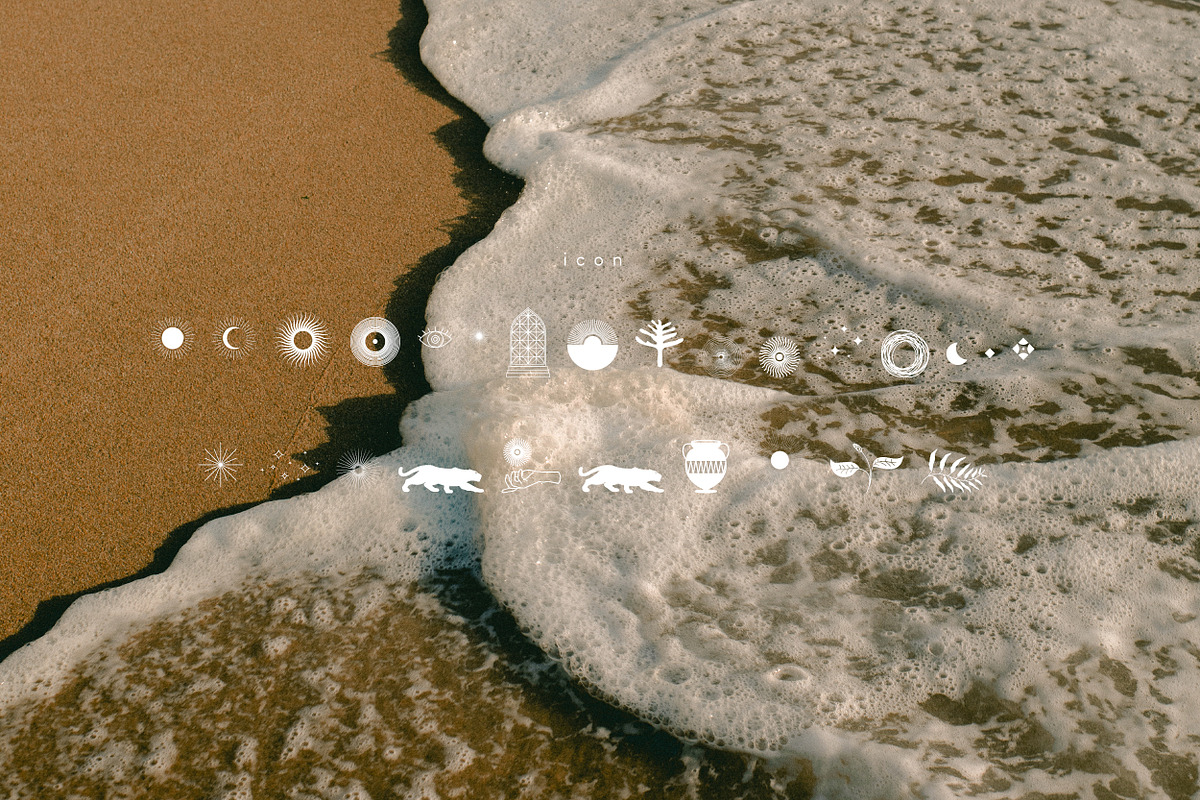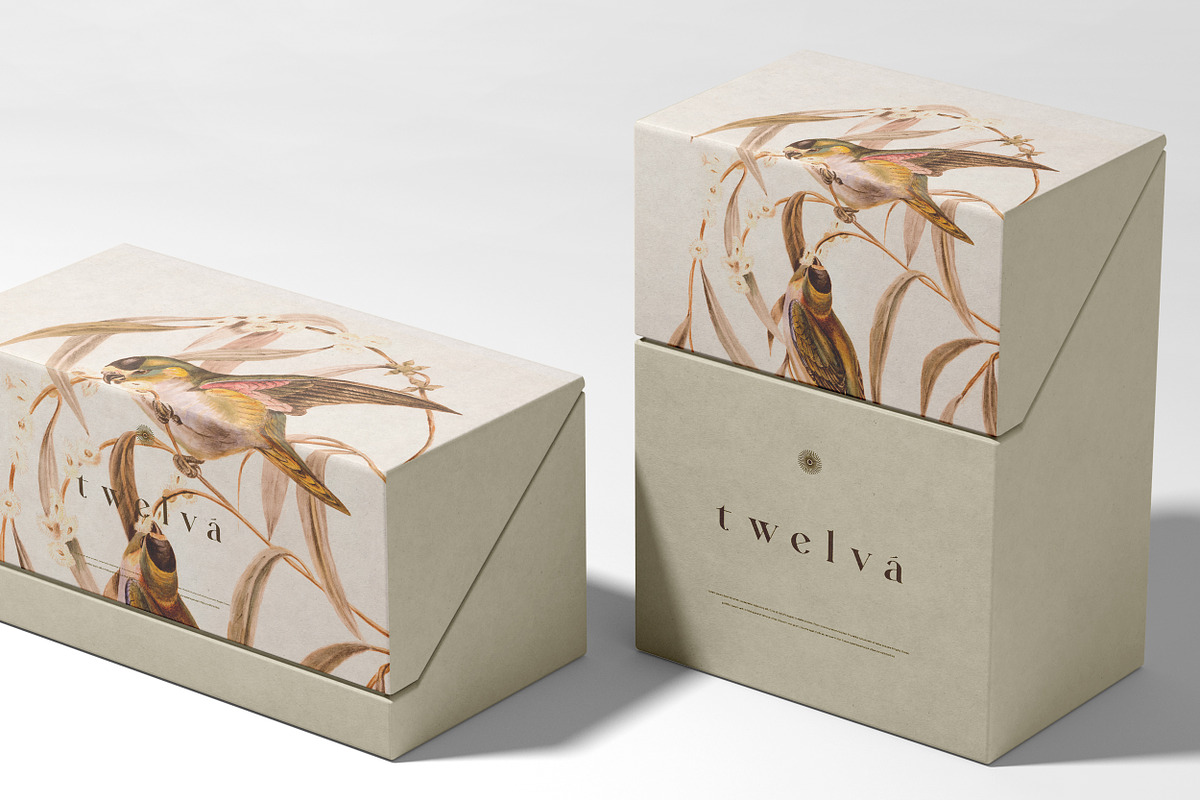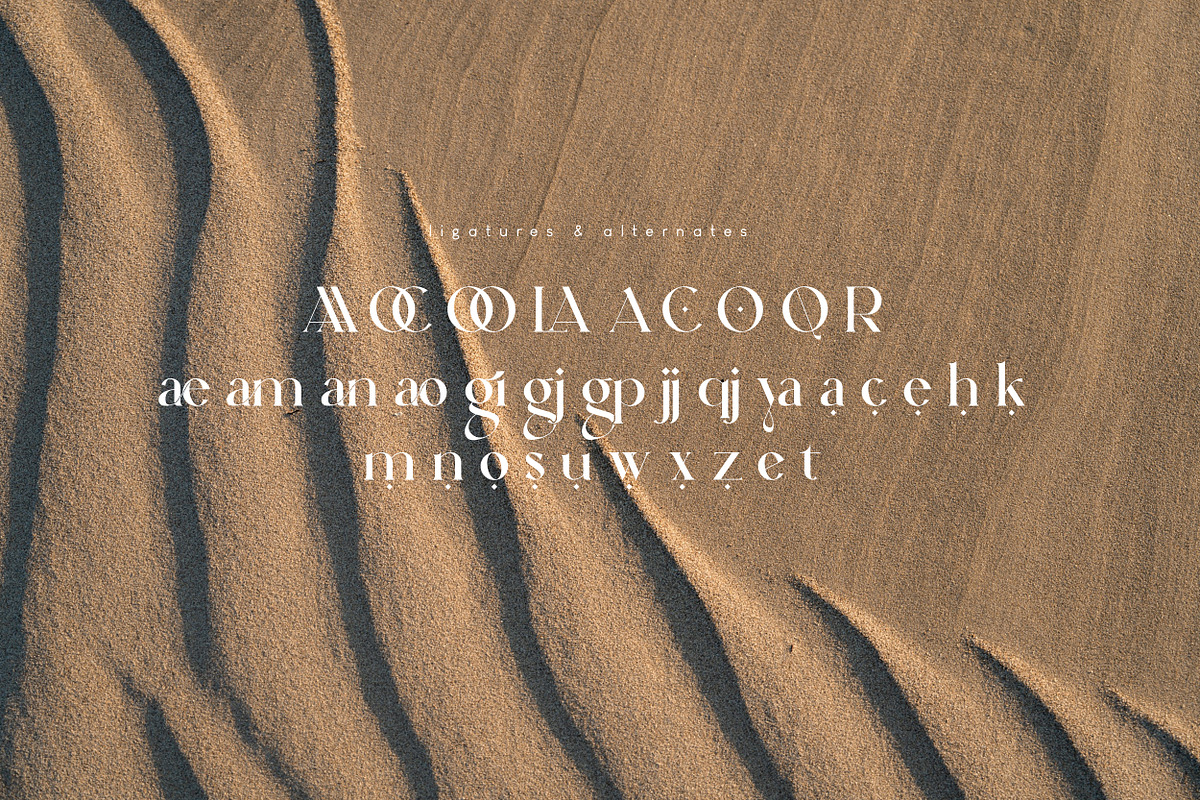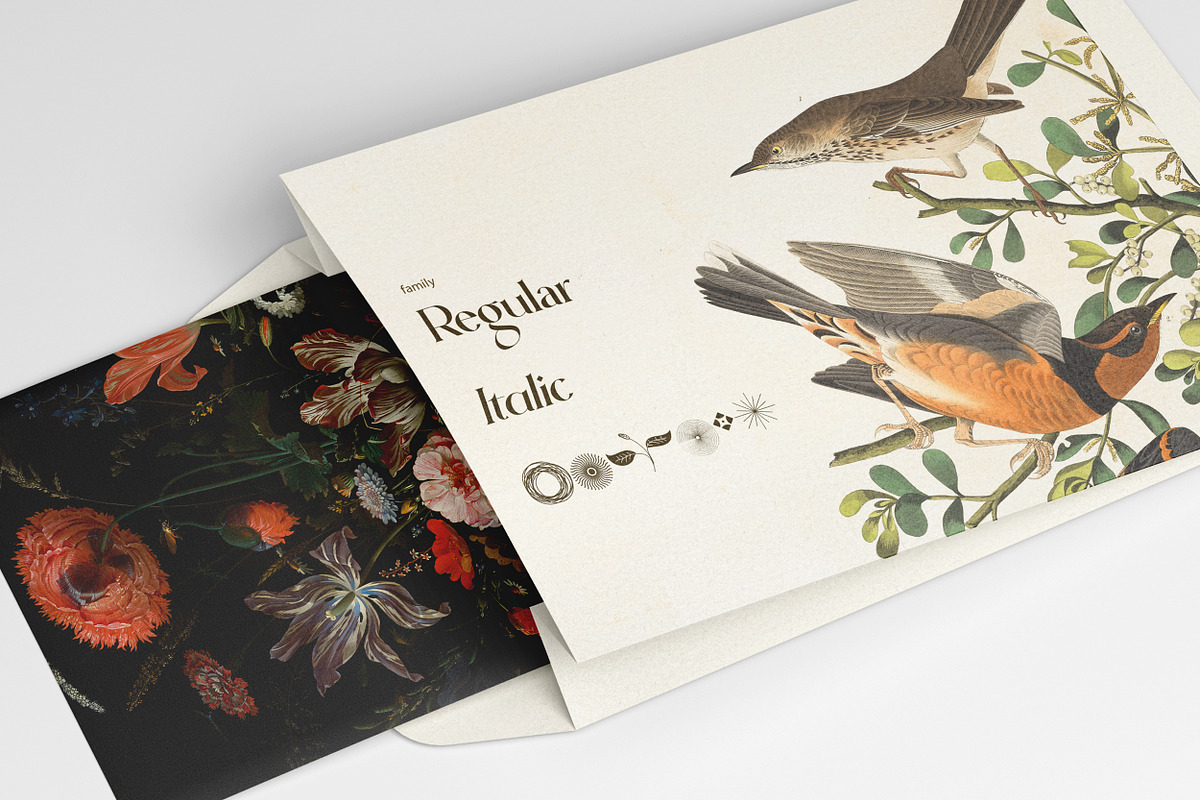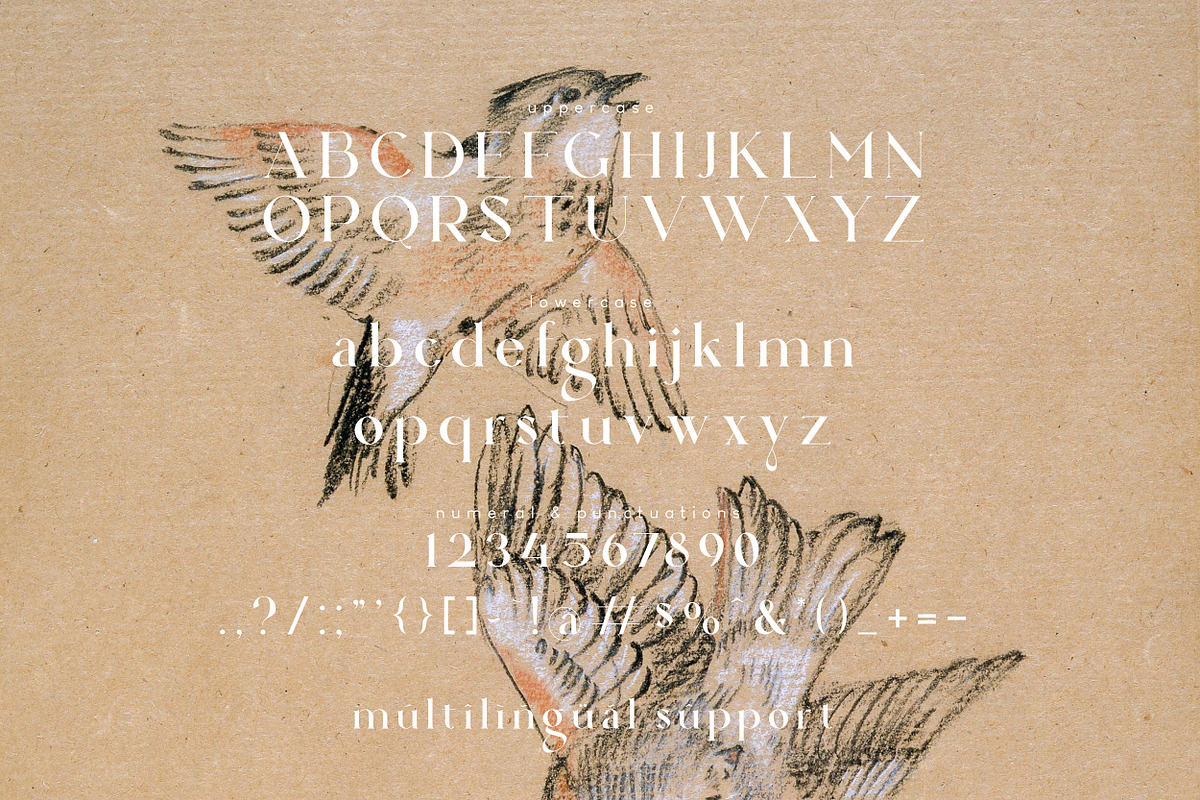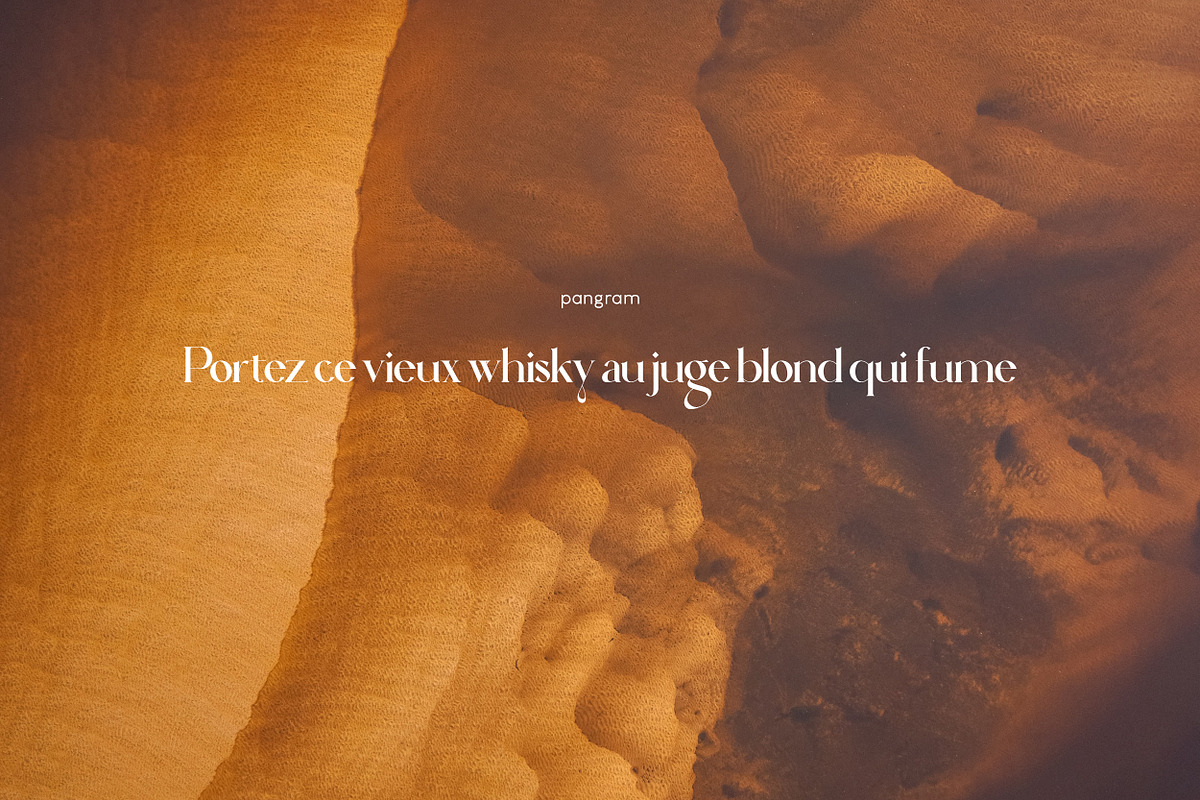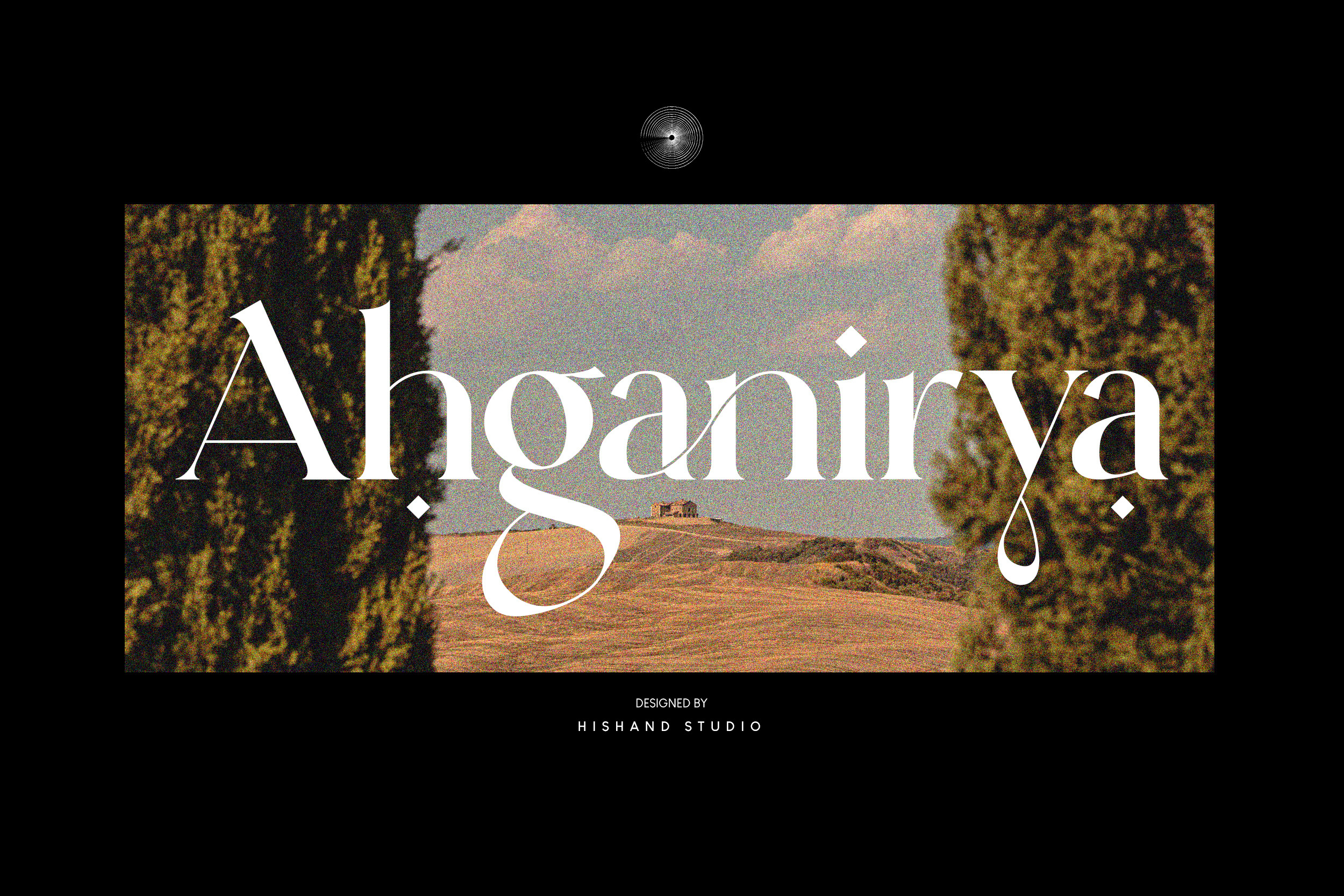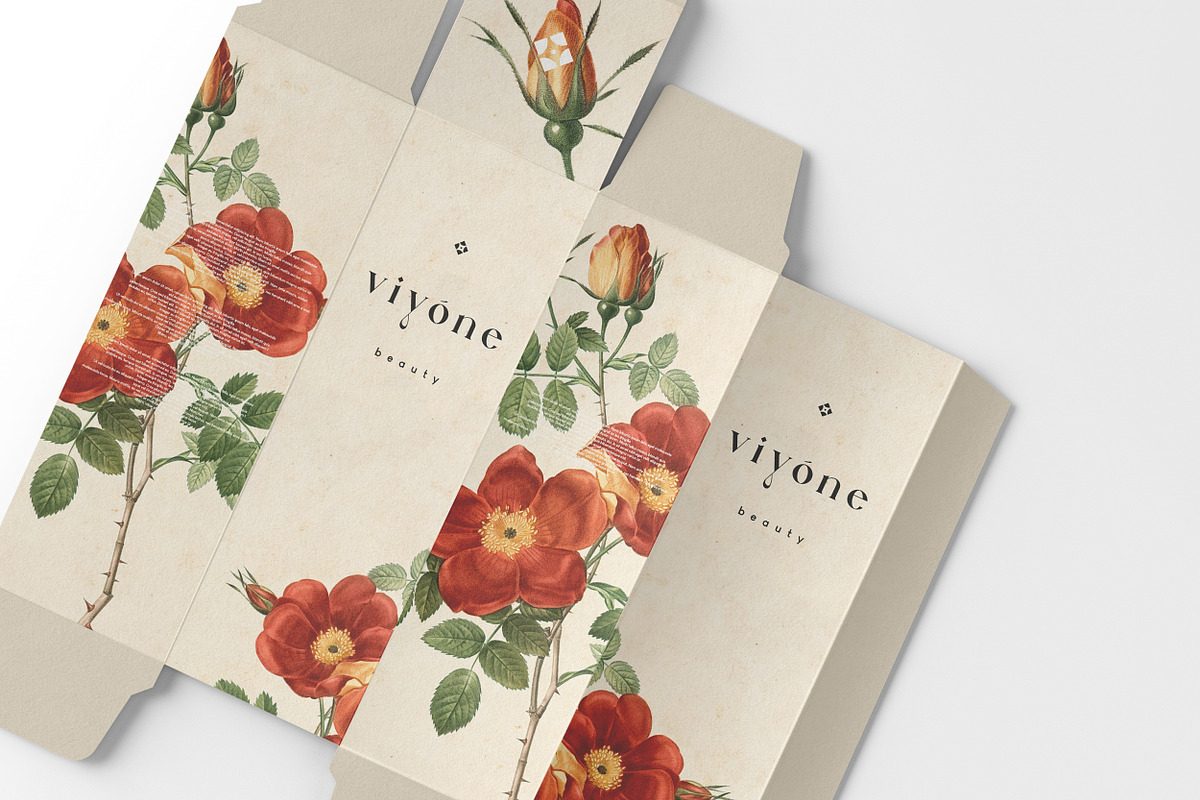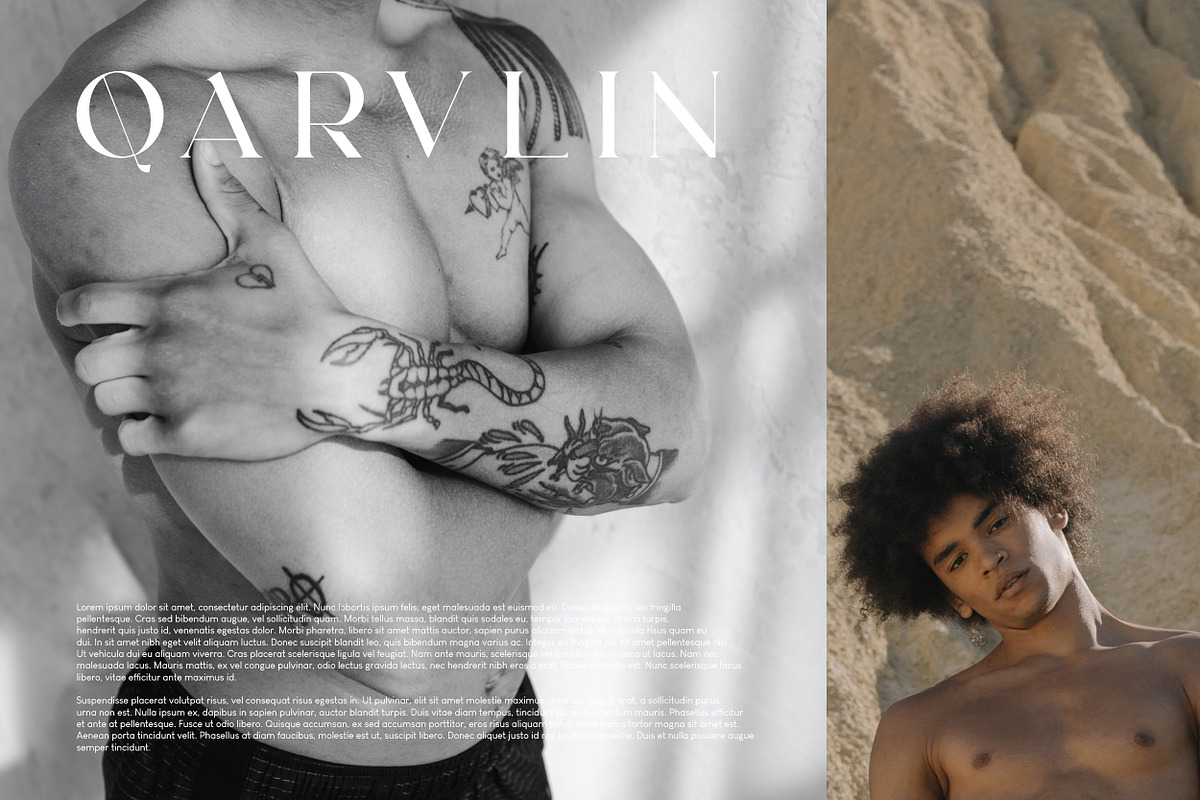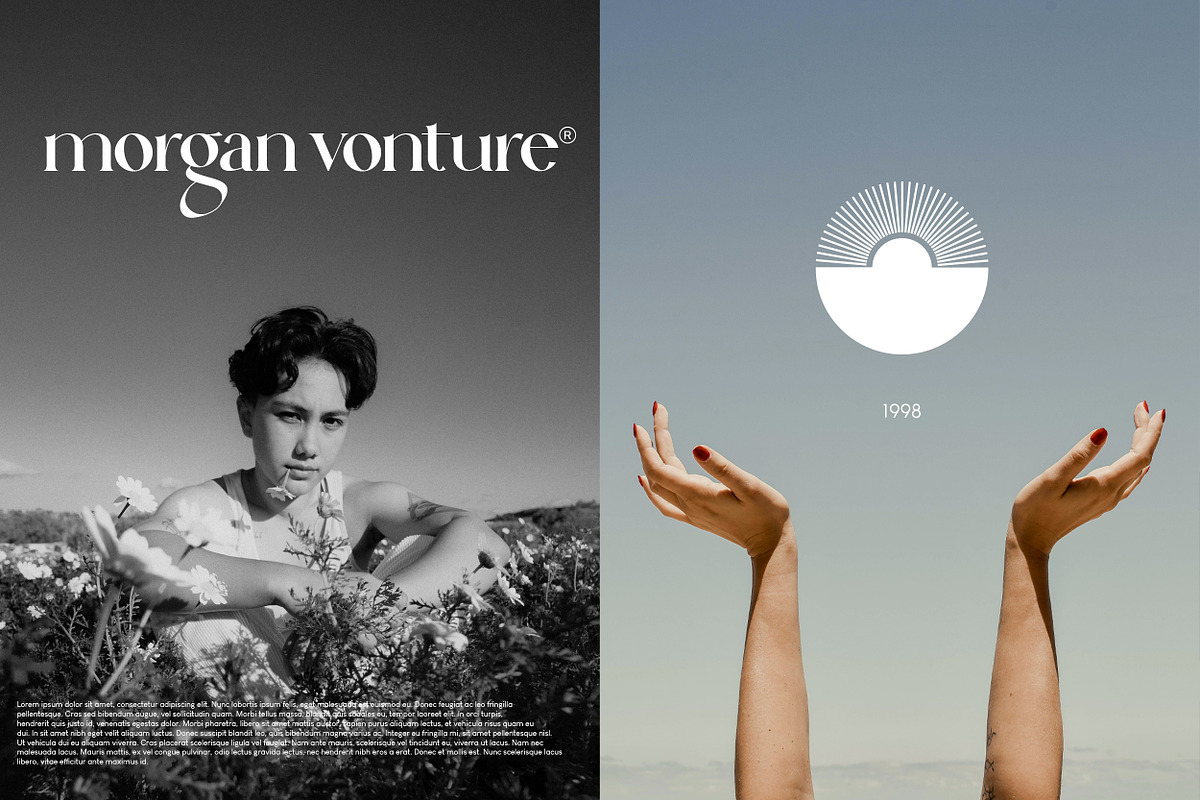
Ahganirya Serif Font
Ahganirya is display font that boasts a modern, minimalist design, making it perfect for businesses looking for a clean and sophisticated look. The font's elegant curves and sharp edges make it a stunning choice for logos, business cards, and other design projects. Ahganirya font offers versatility and flexibility to designers looking to create a cohesive and professional brand identity. Whether you're working on a print or digital project, Ahganirya font's legibility and unique design will surely make your work stand out. Complete with
ligatures
alternates
regular
italic
icon
kerning
multilingual support